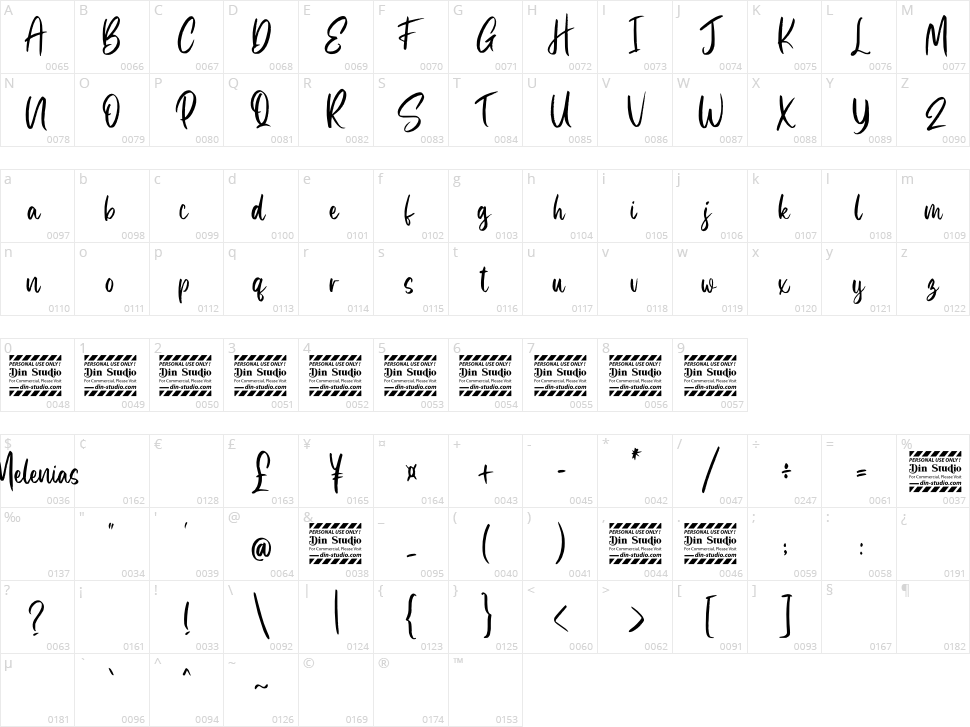
Melenias is a casual brush font. Made for any professional project branding. Every letter has a unique
and beautiful touch.
Melenias is a casual brush font. Made for any professional project branding. Every letter has a unique
and beautiful touch.